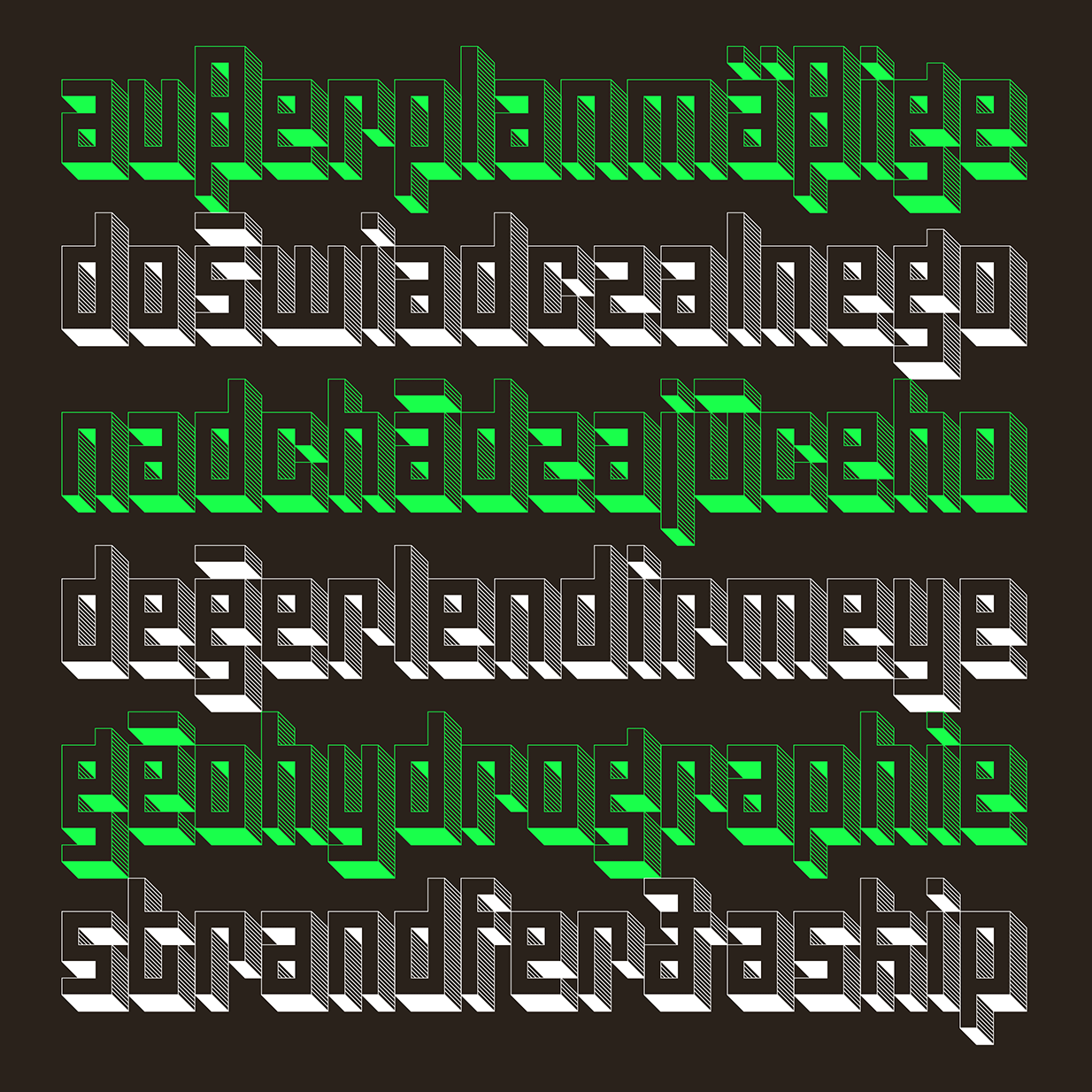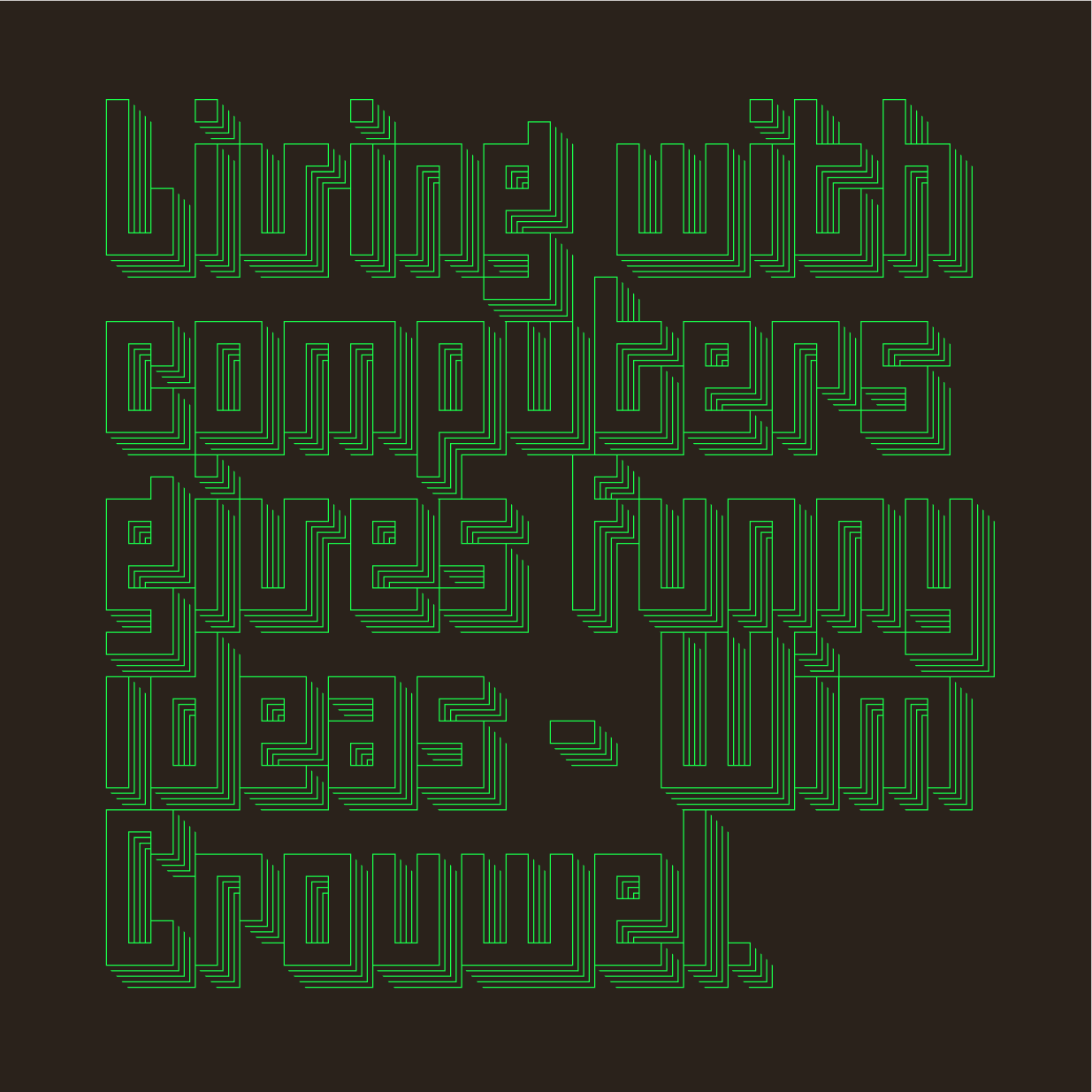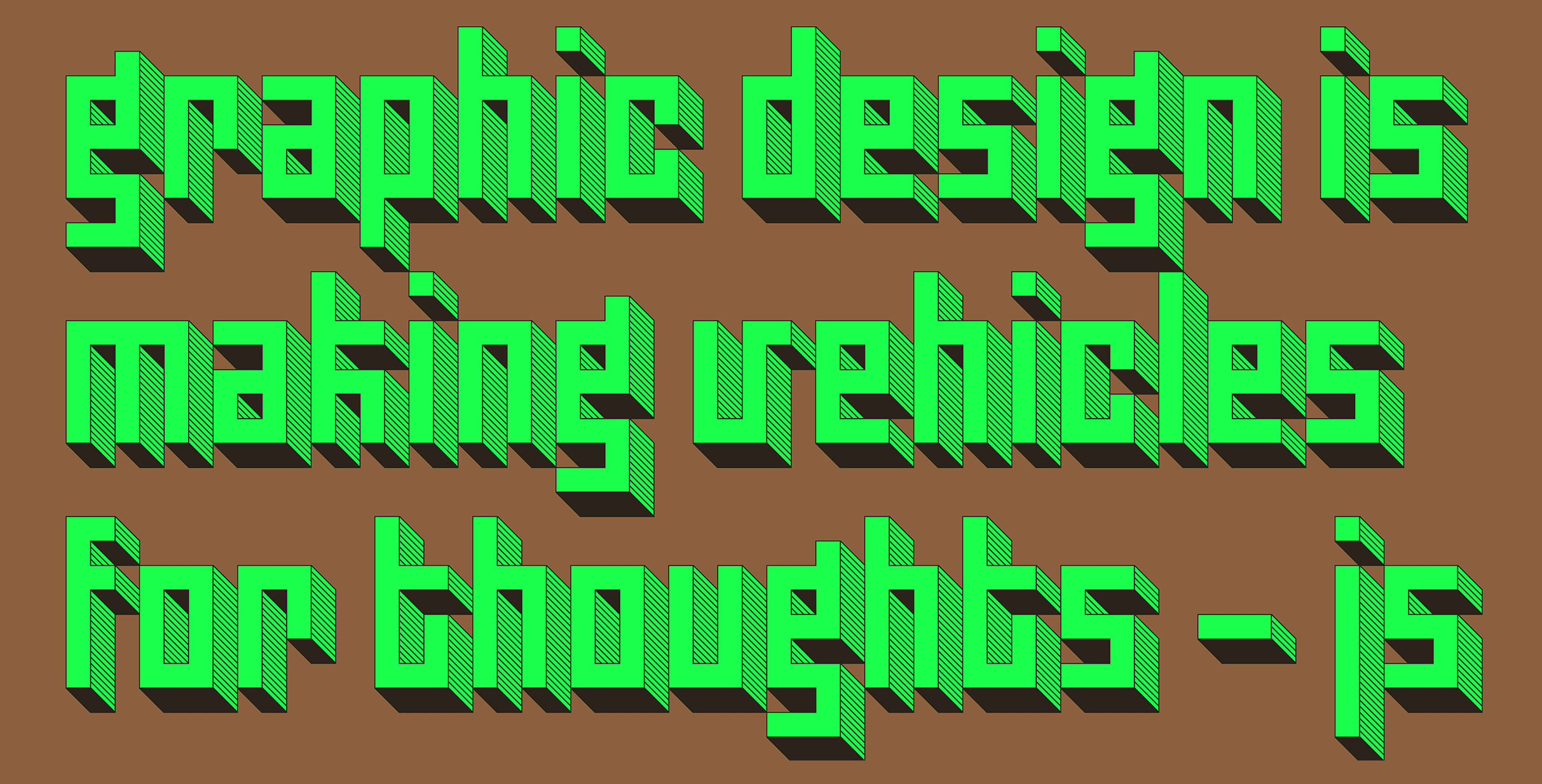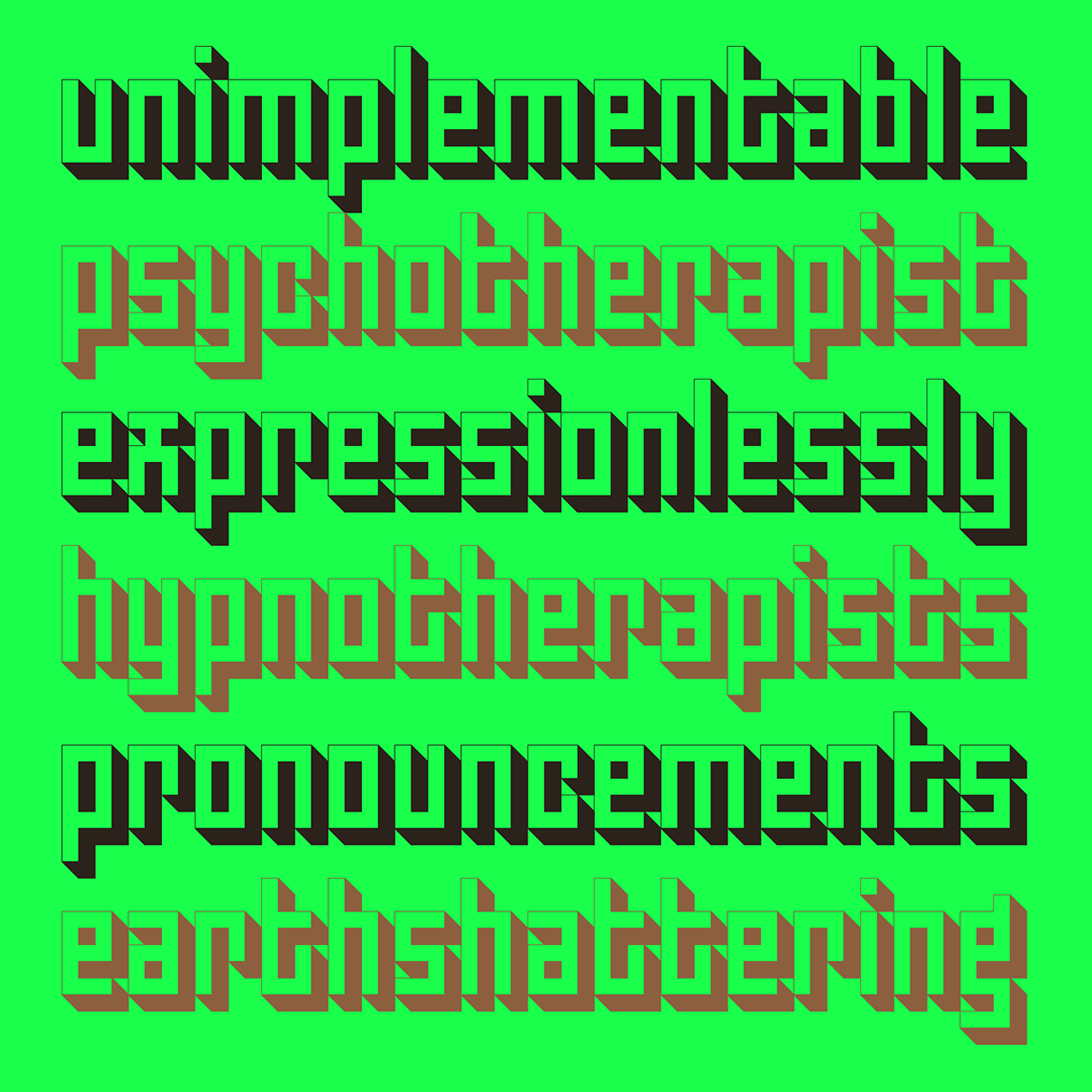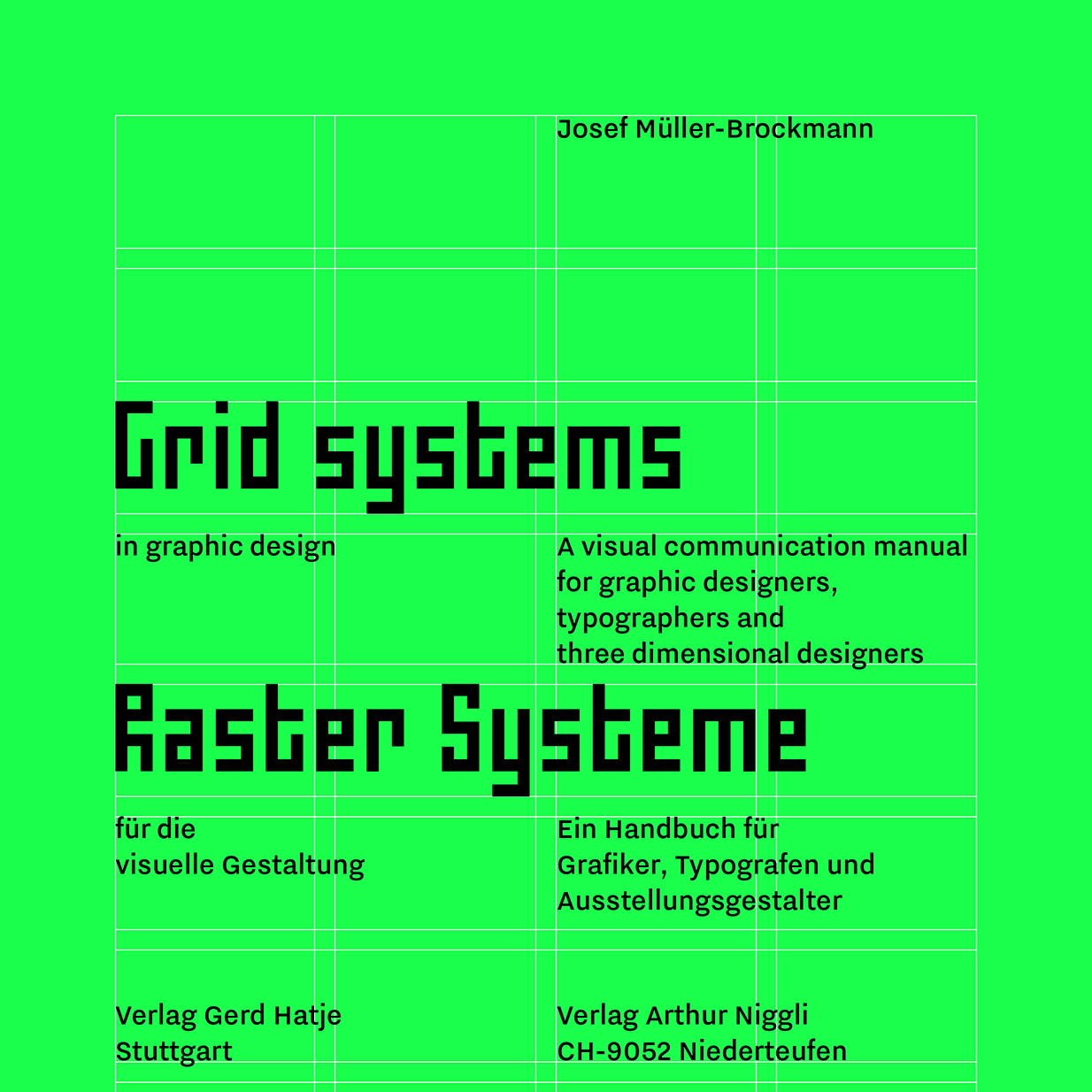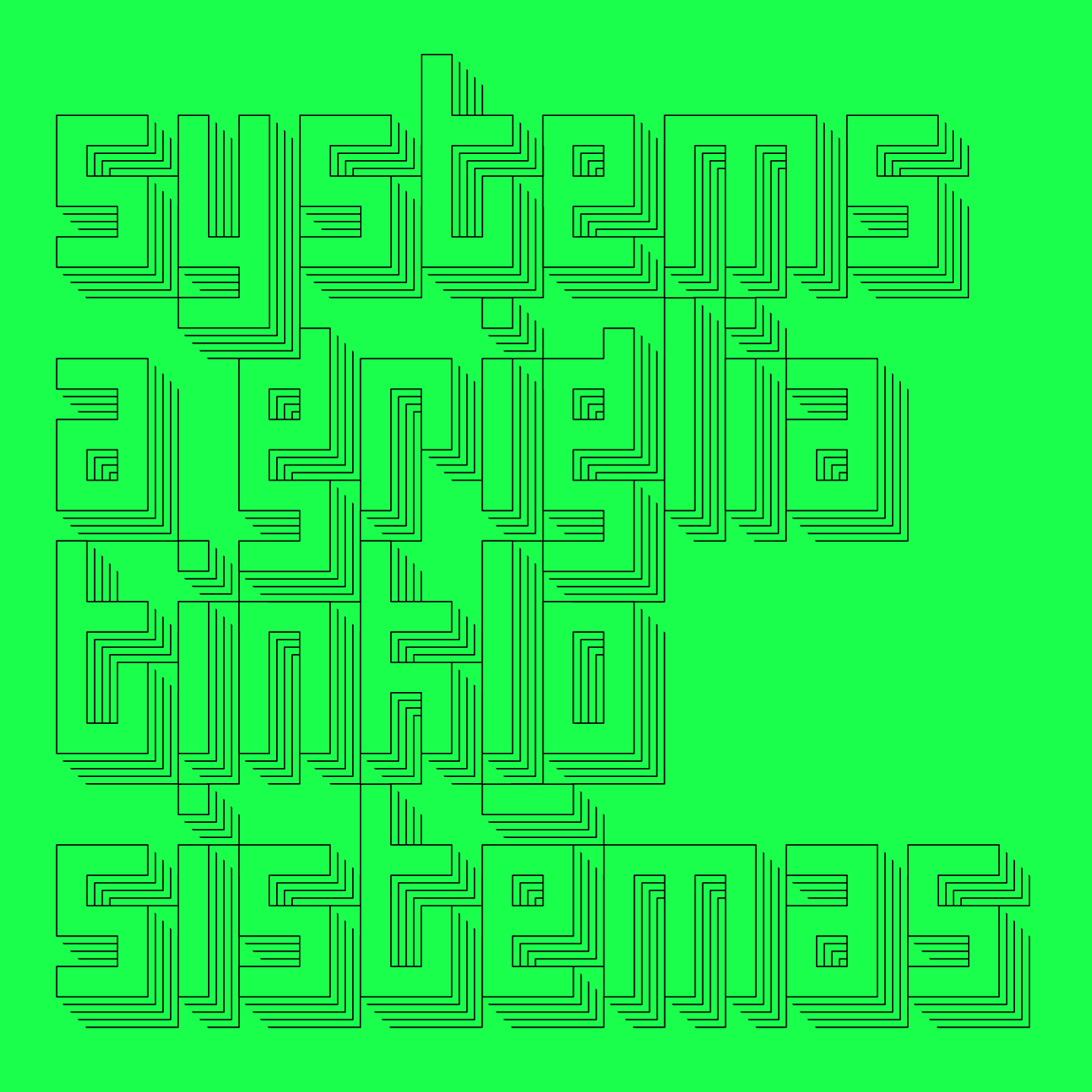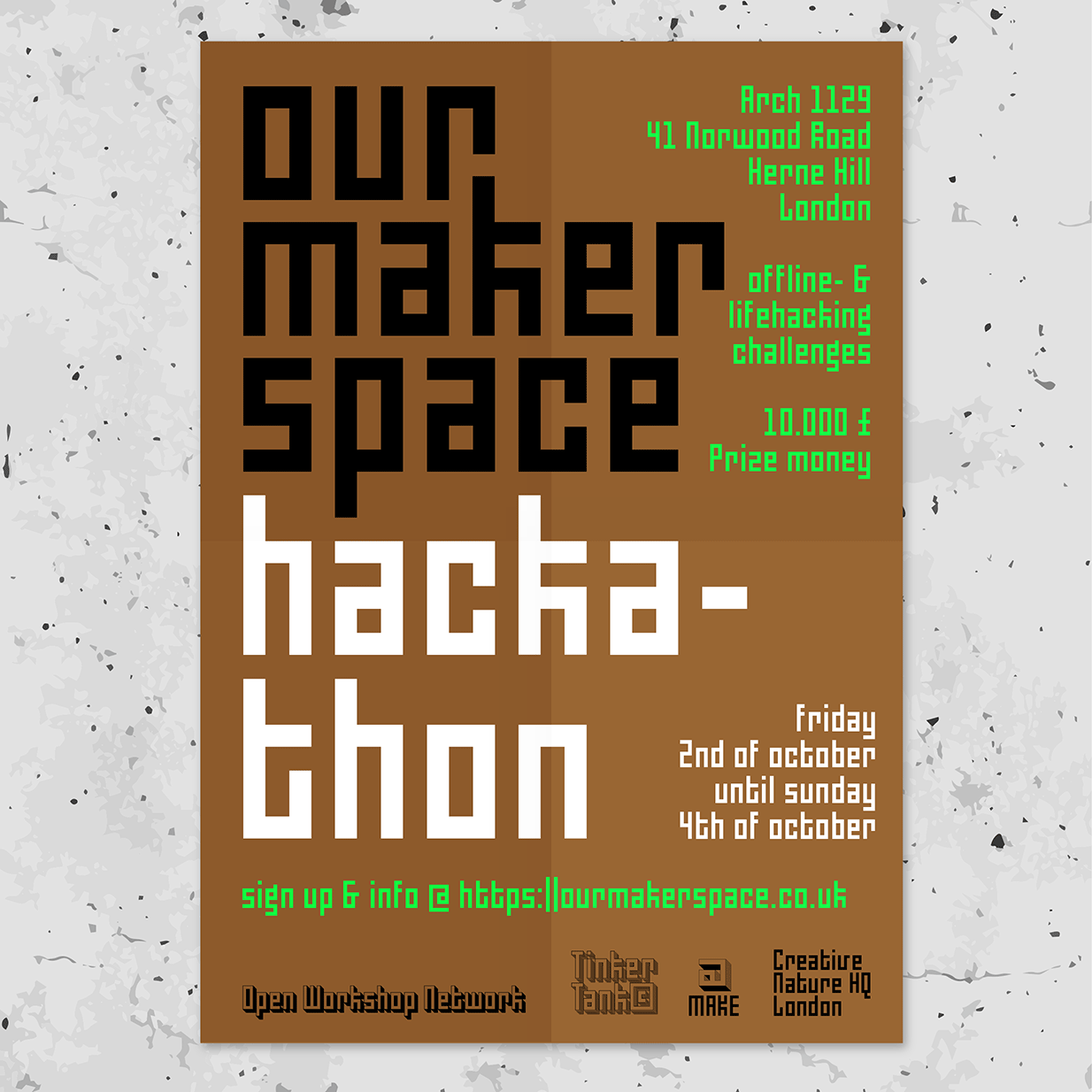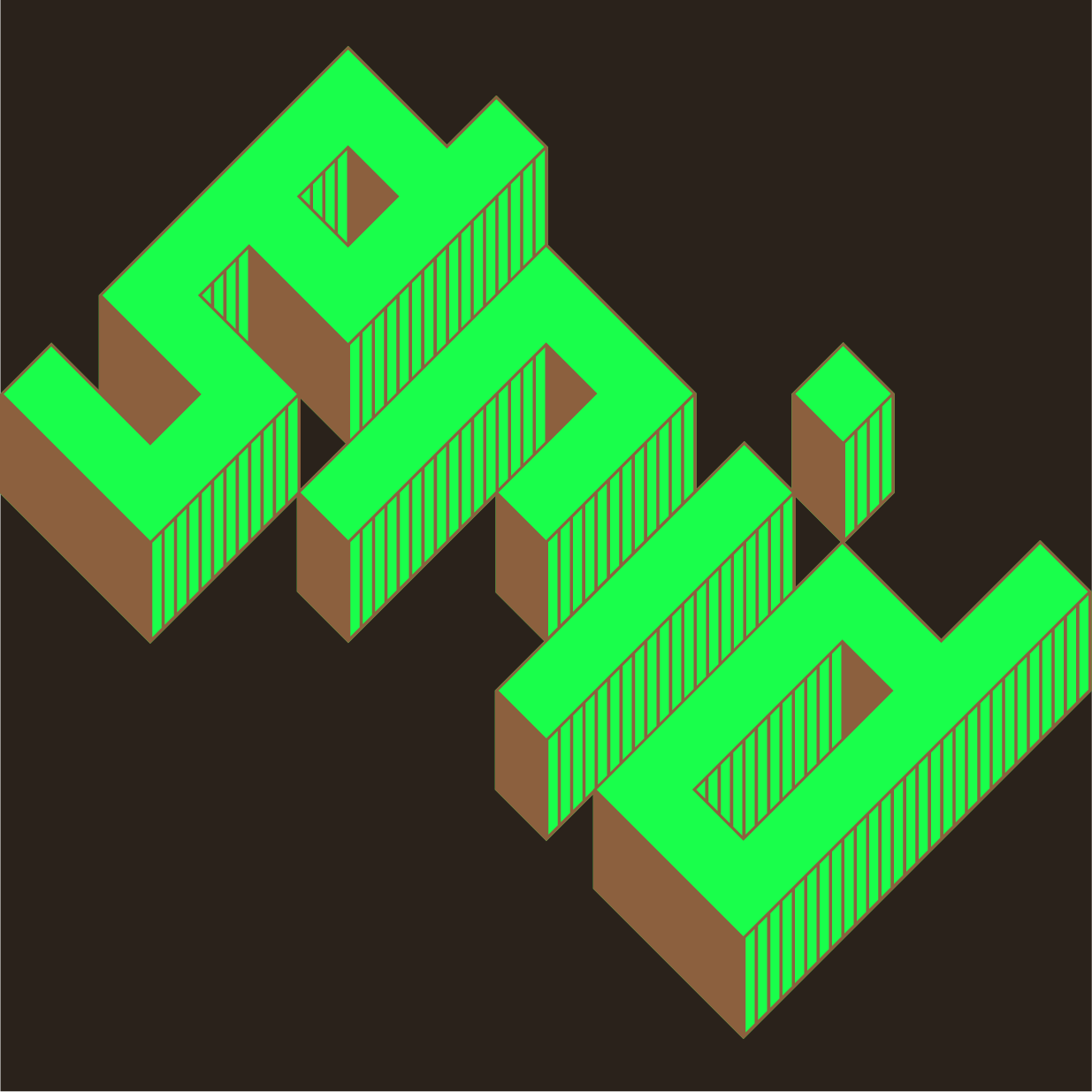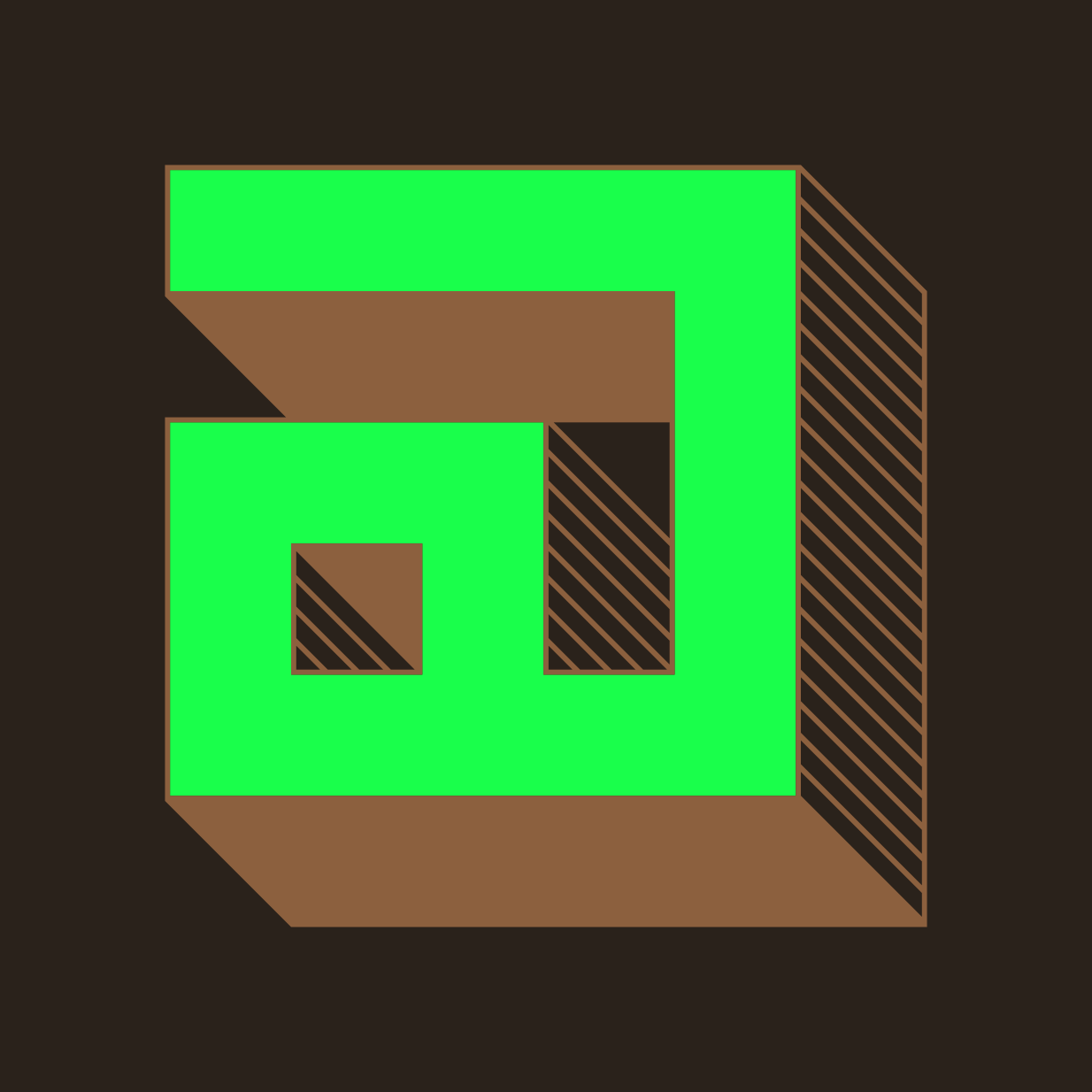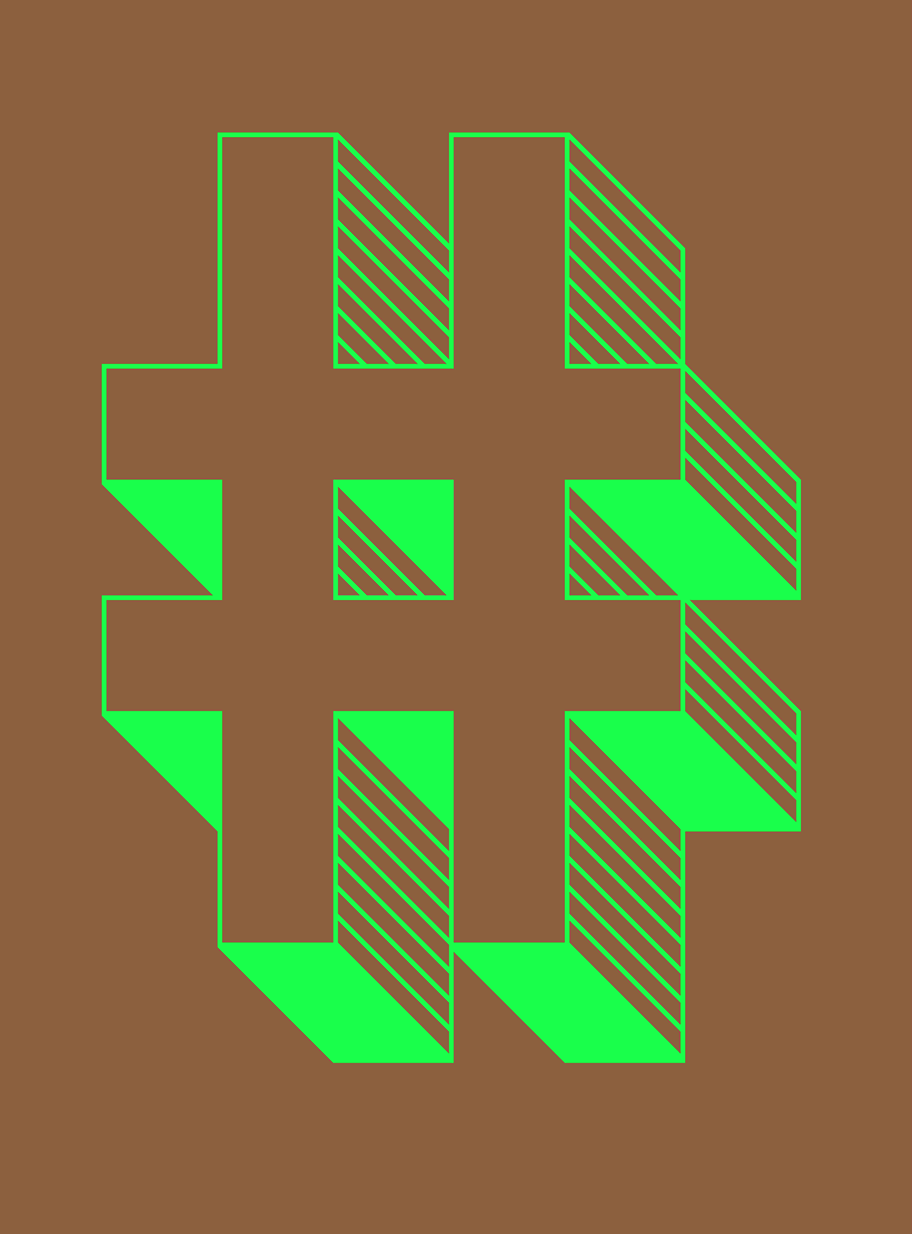
Jurriaan 3D
Both Pieter van Rosmalen and Jurriaan Schrofer have a profound interest in geometrical, modular and multi-dimensional letter experiments. On this typeface they – figuratively – worked together: Jurriaan 3D is a new crossbreed based on a typeface designed by Schrofer in 1969 and the original version of van Rosmalen’s Capibara from 2002. It explores perspective and dimensionality in a supposedly flat medium through four design variants of compact, strictly angular letterforms.
The Dark style throws a severe drop shadow, completely filling the space within and between characters. Ribbed breaks up the shade into five lined layers. The Shaded style is combining finely hatched and hard drop shadows to create different tonal values. Additionally, Fill invites you to experiment with layering and tone/colour even further by combining it with any of the other styles.
Although clearly at home in large-size applications, Jurriaan 3D features proper fractions, alternates, ordinals, scientific inferiors or superscripts and comprehensive language support for refined micro typography.